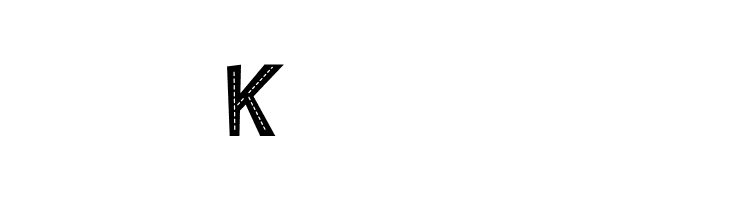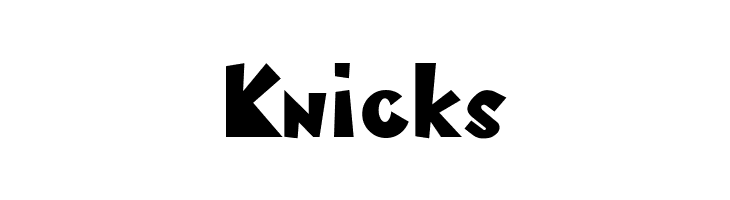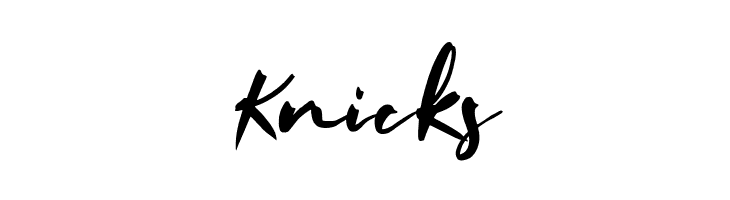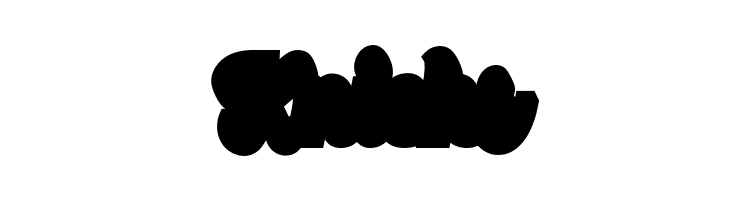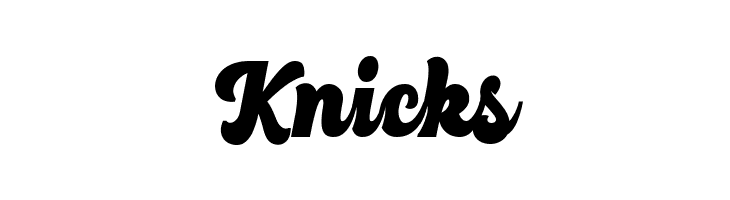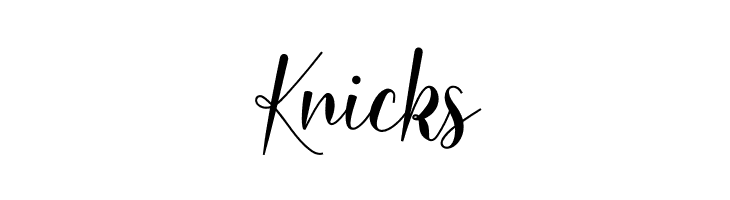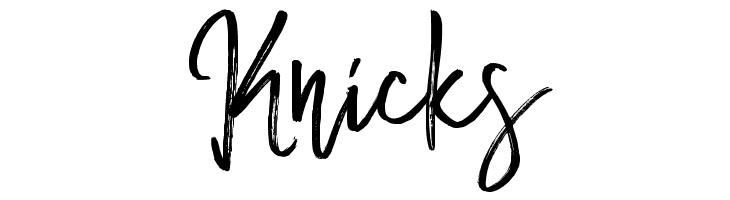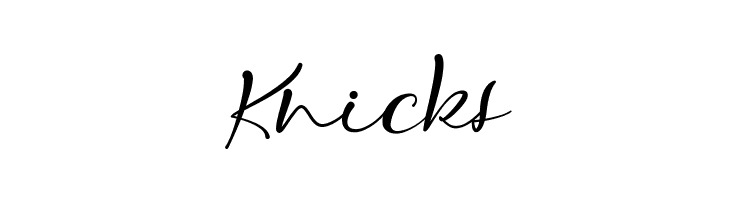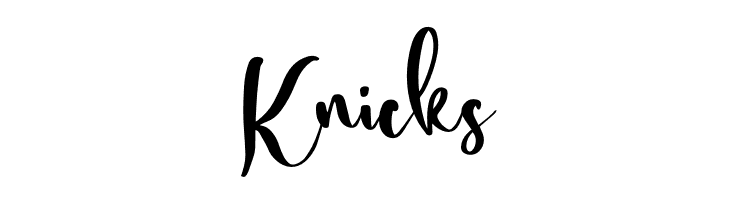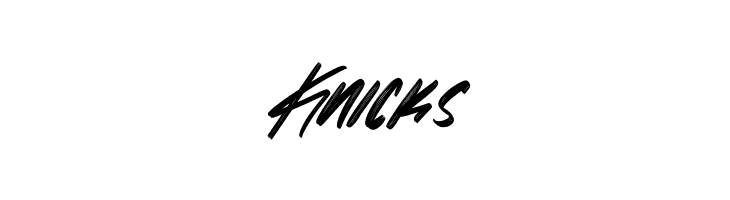
A clean, elegant font with thin strokes and a modern touch.
An elegant, extra-light italic typeface with a modern and refined style.
A bold, heavy display font with a strong, impactful presence.
A bold, italic, and dynamic font with high contrast and a strong presence.
A sleek and elegant italic font with smooth curves and a modern style.
A modern serif font with elegant, well-proportioned characters and refined aesthetics.
A refined, light italic font with medium contrast and elegant style.
A bold, slightly condensed serif font with a modern and versatile style.
A modern, italic font with medium weight and dynamic style.
A modern serif font with clean lines and balanced structure, ideal for versatile use.
A lively handwritten font with fluid, cursive letterforms and varying stroke thickness.
A lively, cursive handwritten font with dynamic strokes and elegant flair.
An elegant, flowing script font with smooth, continuous strokes.
A dynamic, brush-style font with expressive strokes and fluid forms.
A graceful and elegant script font with flowing, interconnected letters.
A bold, brush-style font with dynamic, high-contrast strokes and a lively, handwritten feel.
A dynamic, expressive handwritten font with a modern brush-like texture.
An elegant, flowing script font with a handwritten style.
A lively and expressive handwritten font with fluid strokes and playful elegance.
A lively and flowing script font with elegant, cursive letterforms.
A sophisticated script font with flowing, interconnected letters and ornate flourishes.
A bold, dynamic brush script font with sweeping strokes and a lively, informal style.
A graceful script font with flowing, connected strokes and elegant curves.
A bold, cursive font with fluid, connected characters.
A bold, playful font with a 3D extruded effect and retro vibes.
A modern, elegant script font with flowing cursive characters.
A bold, playful display font with unique patterns and shapes.
A graceful, handwritten script font with elegant, flowing strokes.
A lively and expressive handwritten font with dynamic strokes.
A lively and expressive script font with fluid, interconnected strokes.
A bold, playful font with a whimsical, hand-drawn style.
A playful, hand-drawn font with bold, flowing strokes and dynamic character shapes.
A bold, handwritten font with dynamic and expressive strokes.
A playful, decorative font with bold, rounded characters and dotted patterns.